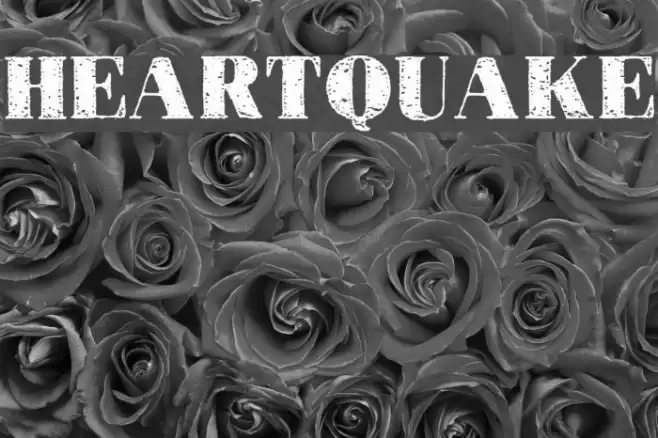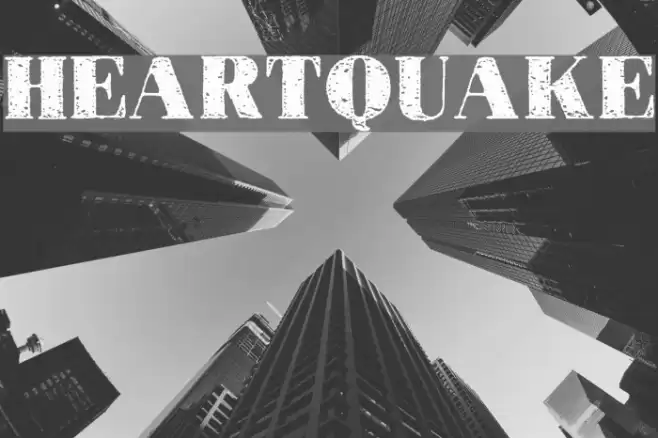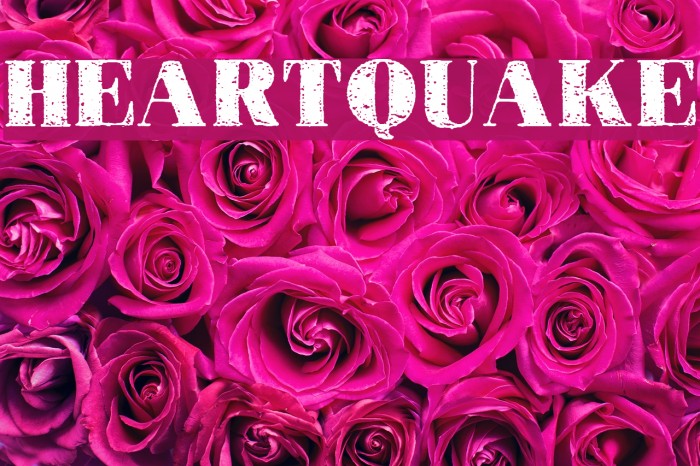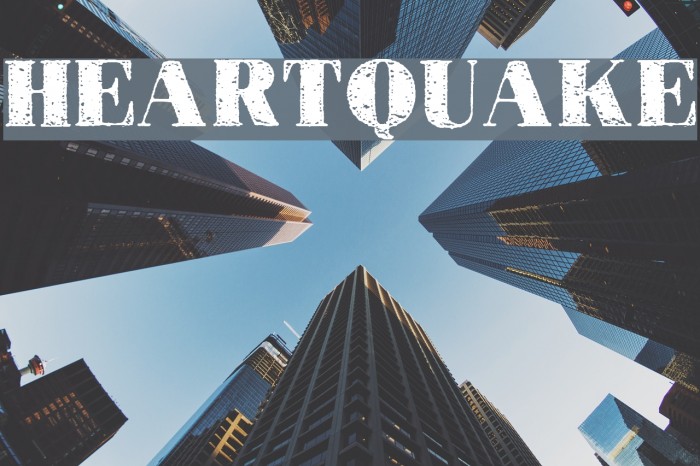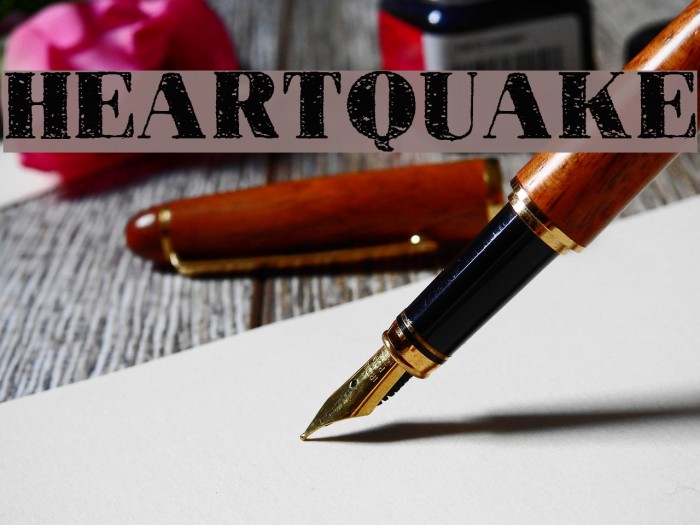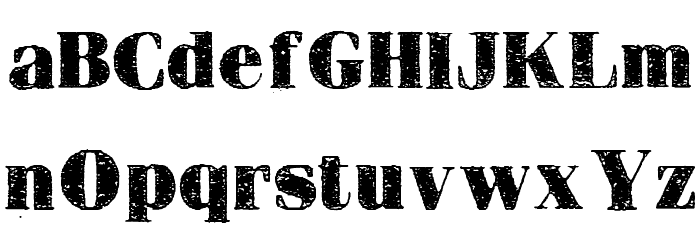
HEARTQUAKE Font
HEARTQUAKE Description
This font features a bold and distressed style, characterized by its textured and worn appearance. The uppercase and lowercase letters maintain a consistent boldness, with a slightly rough edge that gives it a vintage and rugged feel. The numerals and special characters follow the same design, ensuring uniformity across all characters. Its unique style makes it stand out, ideal for projects that require a strong visual impact. The font's decorative nature is perfect for creating eye-catching headlines or logos that need to convey a sense of strength and nostalgia.
A bold, distressed font with a vintage and rugged appearance from Uncategorized fonts.
- Proposed Projects: Ideal for vintage-themed posters, logos, and headlines that need a strong visual impact.
- Overall Style: Vintage